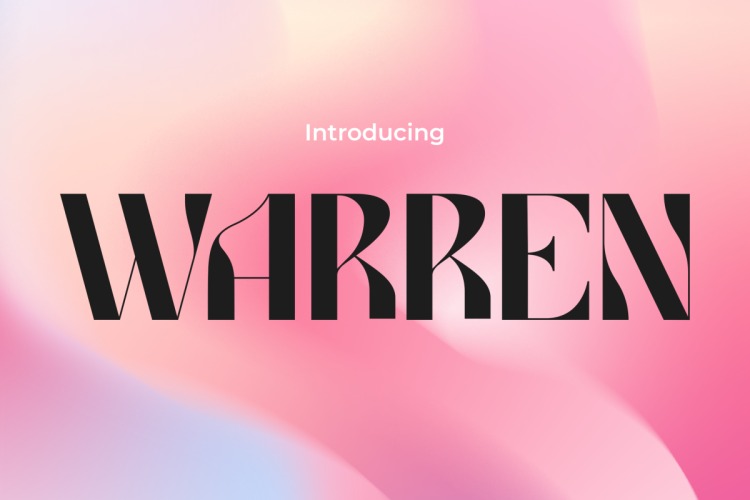
Warren Font
Warren Font is a professionally designed typeface that delivers clarity, structure, and consistent performance across various design applications. Warren is a bold and sophisticated typeface that seamlessly blends timeless elegance with modern aesthetics. Its unique letterforms, featuring high-contrast strokes and geometric cuts, make it both versatile and visually striking. Moreover, its retro-inspired design is perfect for crafting impactful headlines, logos, and branding materials. At the same time, the font’s sleek curves and sharp edges allow you to convey luxury and professionalism effortlessly.
In addition, Warren complements minimalist and artistic designs beautifully, adding personality and charm to every project. Whether you are designing for high-end fashion campaigns, editorial spreads, or promotional posters, this font ensures your work stands out. Furthermore, its balance between vintage charm and contemporary appeal makes it suitable for a variety of creative applications. The soft, elegant vibe it exudes allows it to adapt seamlessly to both digital and print media, ensuring flexibility for diverse design needs.
Its ability to combine boldness and sophistication makes Warren highly adaptable, whether you’re looking to design for a timeless retro feel or a fresh modern aesthetic. By offering such versatility, this font proves itself to be an invaluable tool for a wide range of projects.